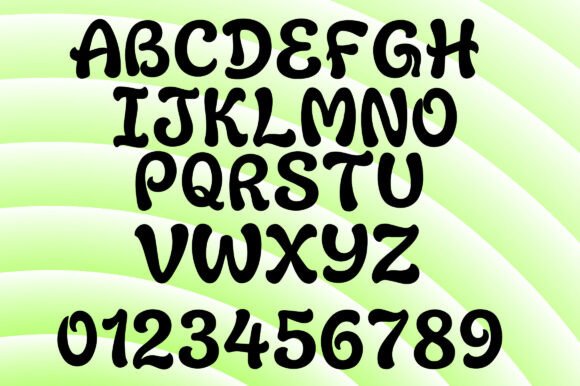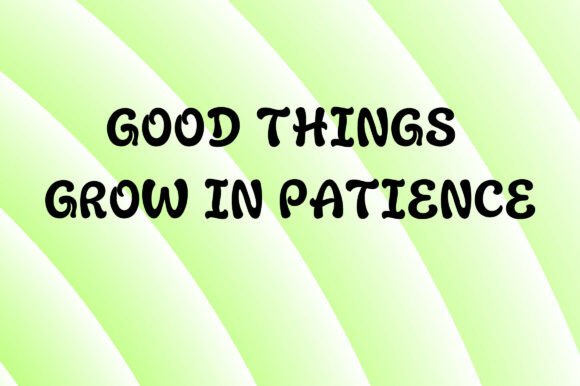
Rise Above Font: Elevate Your Creative Project
Have you ever found yourself stuck in a creative rut, yearning for a font that truly captures the essence of your vision? For many designers, that moment of clarity comes when they stumble upon the perfect typeface. For those seeking a high-quality design resource that exudes a funky-retro vibe, look no further than the Rise Above Font.
With its bold, flared letterforms and bouncy baseline, this chunky display font is sure to elevate your aesthetic and bring your creative project to life. Whether you’re designing labels for an independent craft brewery, creating a retro-themed apparel brand, or crafting a high-impact social media header, Rise Above Font is the perfect choice. And the best part? This versatile design resource is available for free download, complete with a transparent background that lets your creative vision shine through.
Key Features of Rise Above Font
- High-quality design resource with a modern and stylish aesthetic, perfect for creative projects.
- Includes a large character set, covering a wide range of languages and characters, making it suitable for global creative projects.
- Designed to be highly legible and readable, even at small font sizes, making it ideal for body text and headings in creative projects.
Honest Review: Rise Above Font
As a designer, I’m always on the lookout for high-quality design resources that can elevate my creative projects. Recently, I stumbled upon the Rise Above Font, and I’m excited to share my honest review with you.
What works well: ✨ The font is incredibly versatile, making it perfect for a wide range of creative projects, from logos and branding materials to digital designs and print materials. The font’s sleek and modern design ensures it will look great on any background, including transparent backgrounds.
- High-quality design: The font is designed with precision and attention to detail, ensuring a high-quality result every time.
Limitations: ⚠️ While the Rise Above Font is an excellent addition to any designer’s toolkit, it may not be the best choice for projects that require a more traditional or classic look. Additionally, the font’s modern design may not be suitable for all audiences, particularly those who prefer more conservative or conservative typography styles.
Overall impression: I’m thoroughly impressed with the Rise Above Font, and I’m confident it will become a staple in my design workflow. With its high-quality design, versatility, and free download option, it’s an excellent resource for any designer looking to elevate their creative projects.
The Rise Above Font is a high-quality design resource ideal for creative projects that require a unique and modern touch. With a transparent background, this font is perfect for overlaying text on images or using as a standalone design element.
Tips for Getting the Most Out of the Rise Above Font
Use the Rise Above Font to add a touch of sophistication to your designs.
Experiment with different font sizes and colors to create a unique look.
The Rise Above Font is ideal for:
Wedding invitations and stationery.
Business cards and marketing materials.
Graphic design projects and visual content.